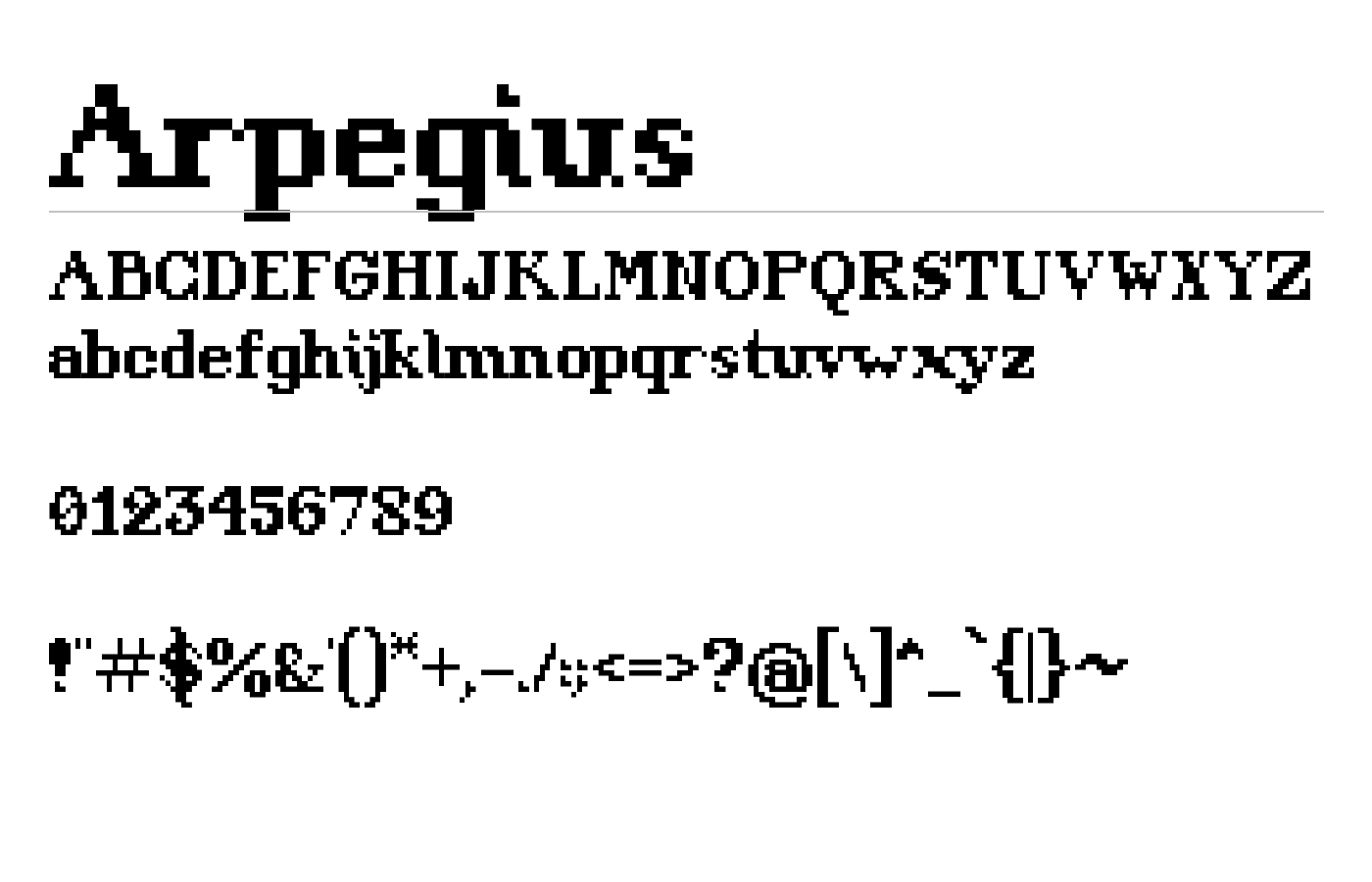
Arpegius is a pixelated serif font that combines a retro, digital aesthetic with classic letterforms. Its bold weight, high contrast, and precise square edges give it a unique, vintage computer or arcade feel, making it ideal for video game graphics, tech-inspired branding, and digital art projects that seek a nostalgic yet structured look. This font works best in headlines and logos where its distinctive style can stand out clearly.
Arpegius Font
About Arpegius Font